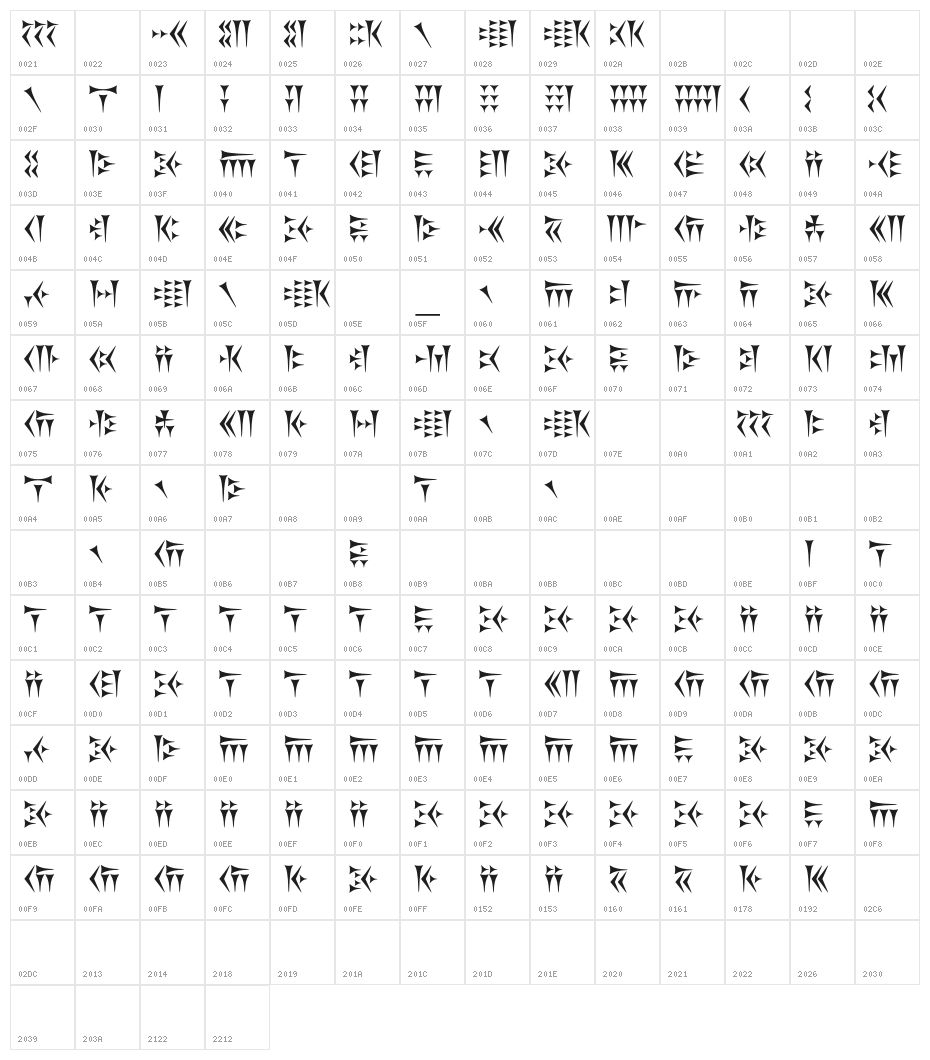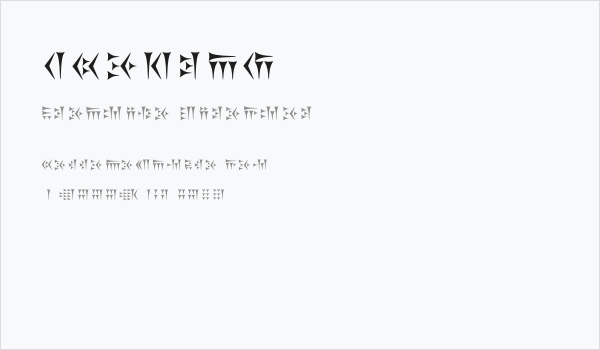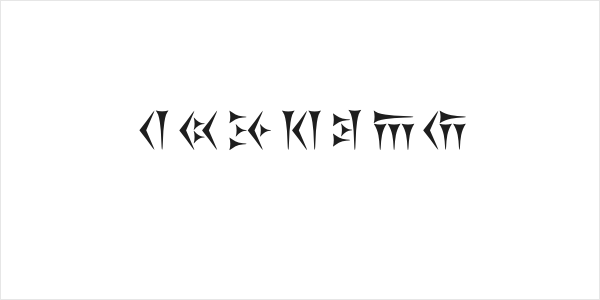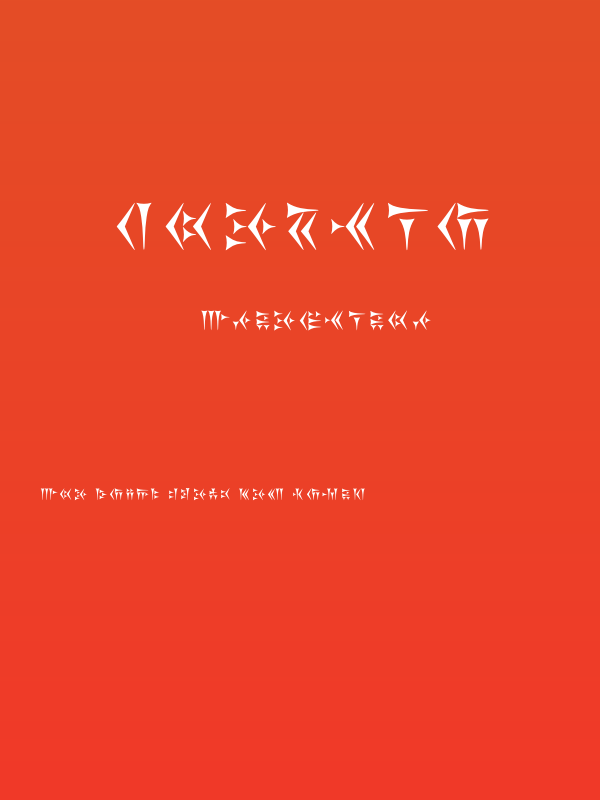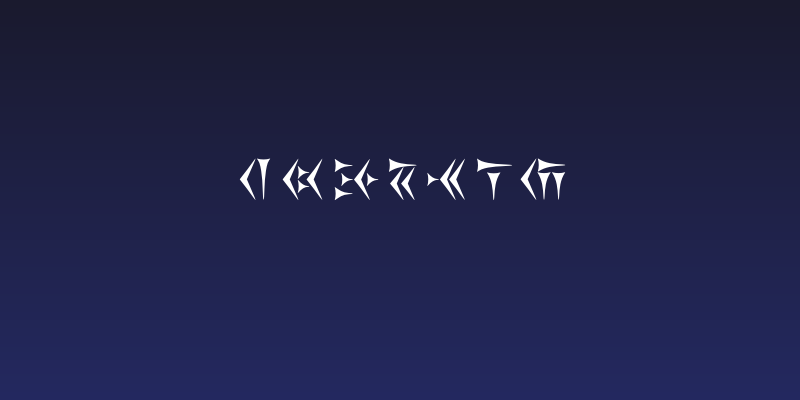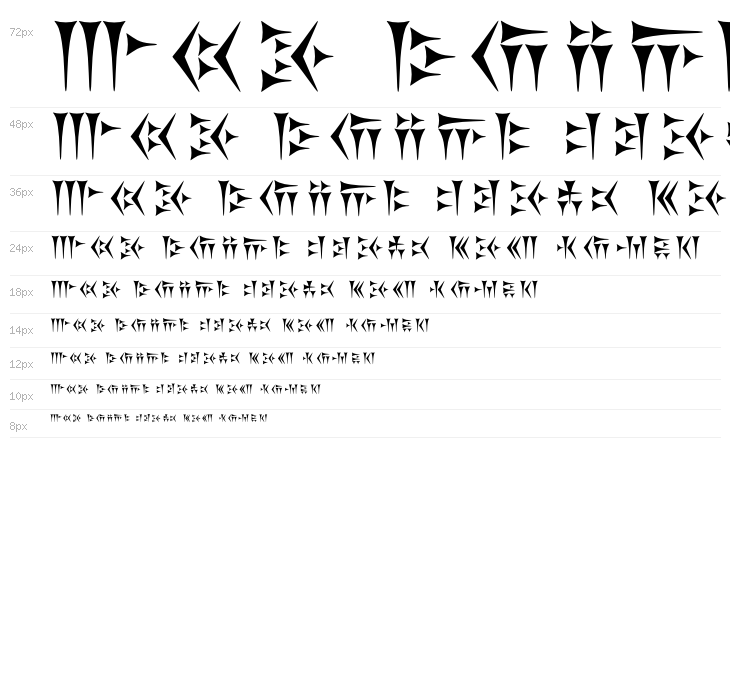
Khosrau Font
Khosrau Description
This font is a highly decorative and stylized typeface that draws inspiration from ancient scripts, resembling cuneiform or hieroglyphic writing. The characters are composed of sharp, angular lines and geometric shapes, creating a bold and striking appearance. Each letterform is unique, with intricate details that give the font a mysterious and exotic feel. The overall design is complex and visually captivating, making it suitable for projects that require a strong visual impact. The font's distinctive style makes it ideal for use in themed designs, such as historical or fantasy settings.
| Use Case | Logos, Posters, Artistic projects |
| Proposed Projects | Ideal for themed designs, historical or fantasy settings, posters, and artistic projects. |